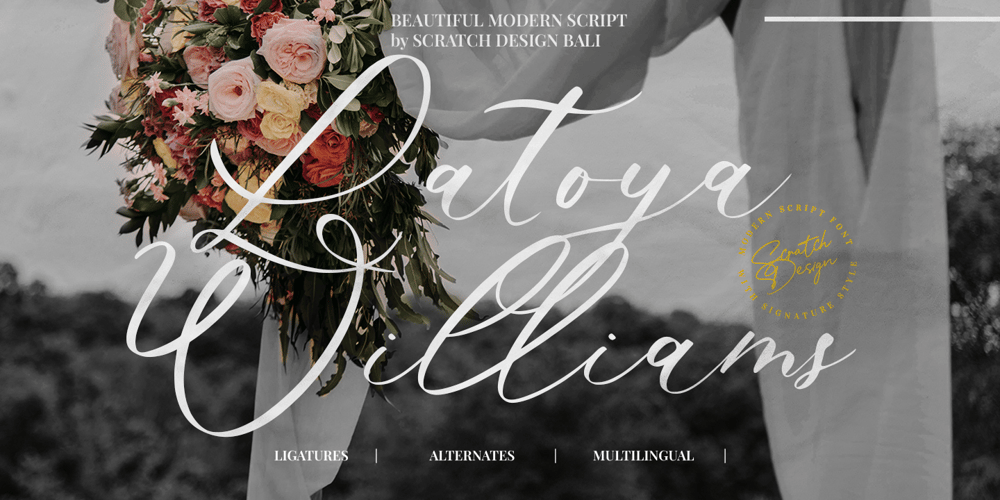
Latoya Williams Font Family was designed by Gitayogi Irhandi and published by Scratch Design. Latoya Williams contains 1 styles and family package options. Introducing Latoya Williams, an elegant, modern calligraphy script font that effortlessly enhances romantic designs, especially compositions adorned for wedding functions. This font breathes in a sweet and pleasing aura, accented with exquisitely crafted beginning and ending swashes that only indicate in lowercase letters. Designed to beautify a wide variety of projects, you can exploit Latoya Williams in creating striking wedding invitations, commanding branding designs, captivating posters, alluring product packaging, trendy magazine layouts, and visually engaging social media content. Included in this font’s feature set is an assortment of uppercase and lowercase options, numbers, punctuations and lowercase swashes as alternates. Multilingual support and ligatures add to Latoya Williams’s versatility. Savor the creative possibilities with Latoya Williams font!